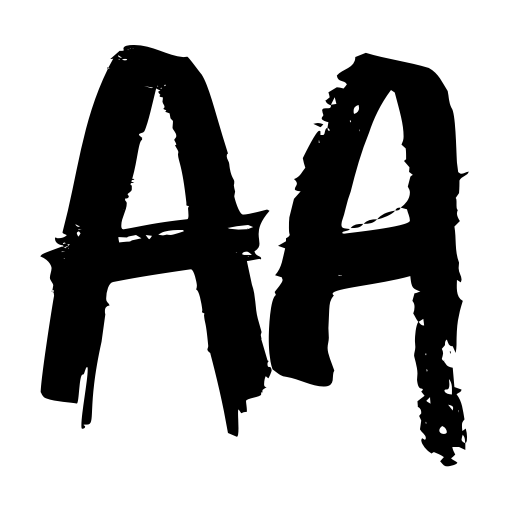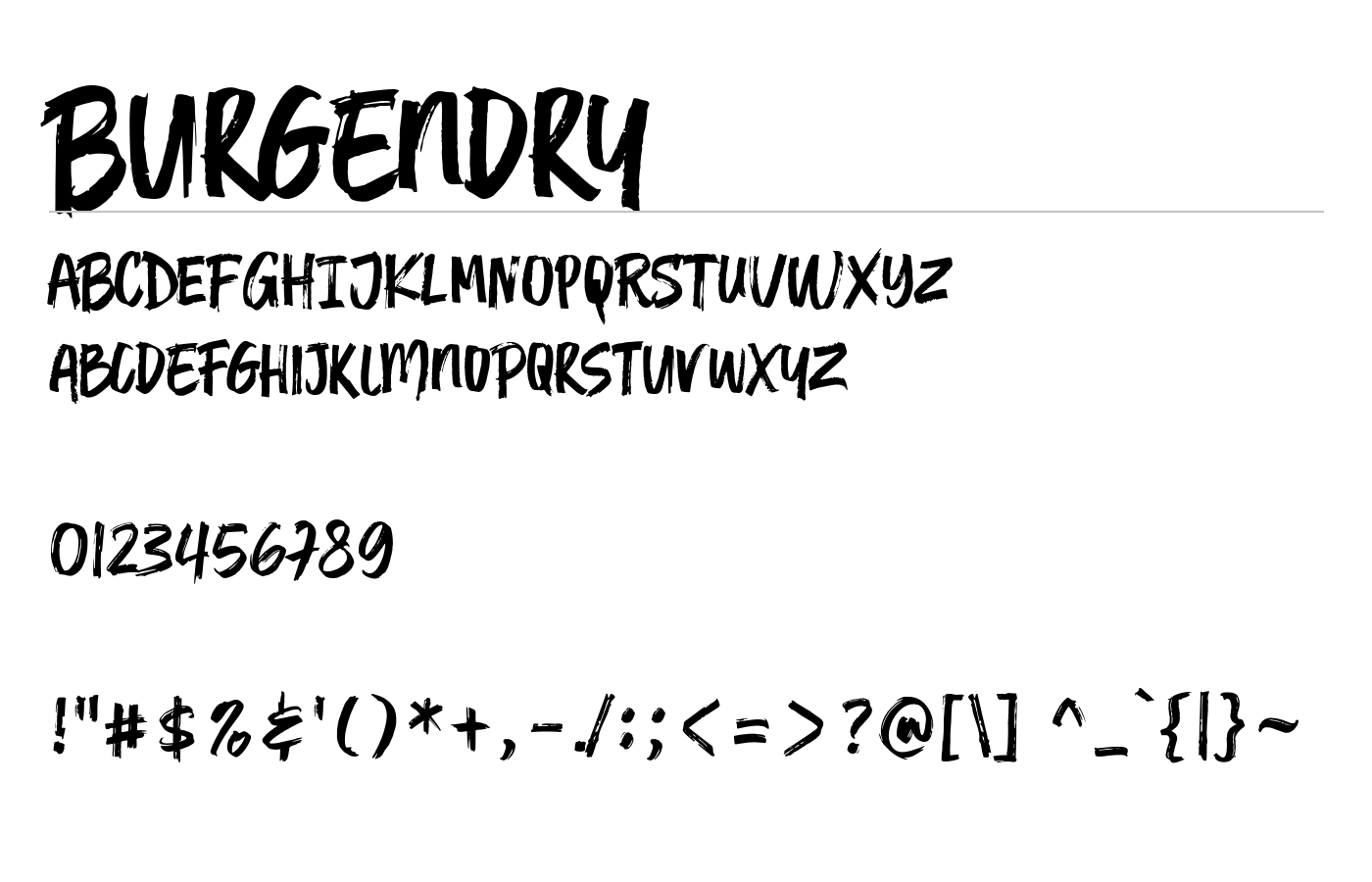
Burgendry is a bold, hand-drawn brush script font with a rough, textured look that brings an energetic and casual vibe to any design. Its tall, slightly condensed letterforms and uneven strokes create a dynamic, expressive style perfect for eye-catching headlines, posters, and creative branding that seeks a lively, handcrafted feel. This font works well where a playful yet impactful personality is needed, such as in streetwear, youth-oriented projects, and informal editorial designs.
Burgendry Font
About Burgendry Font